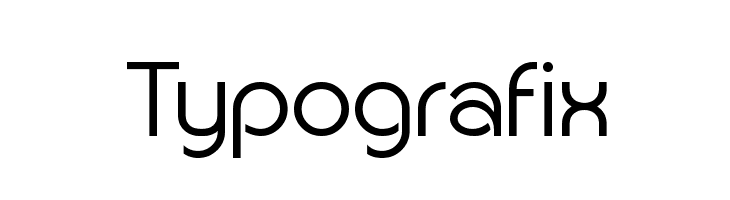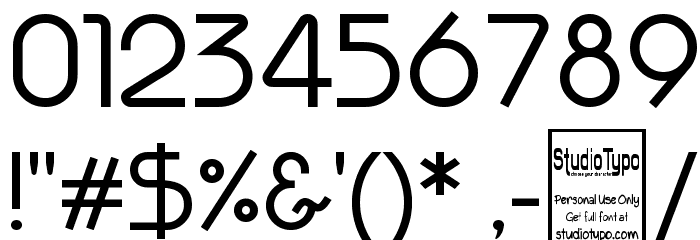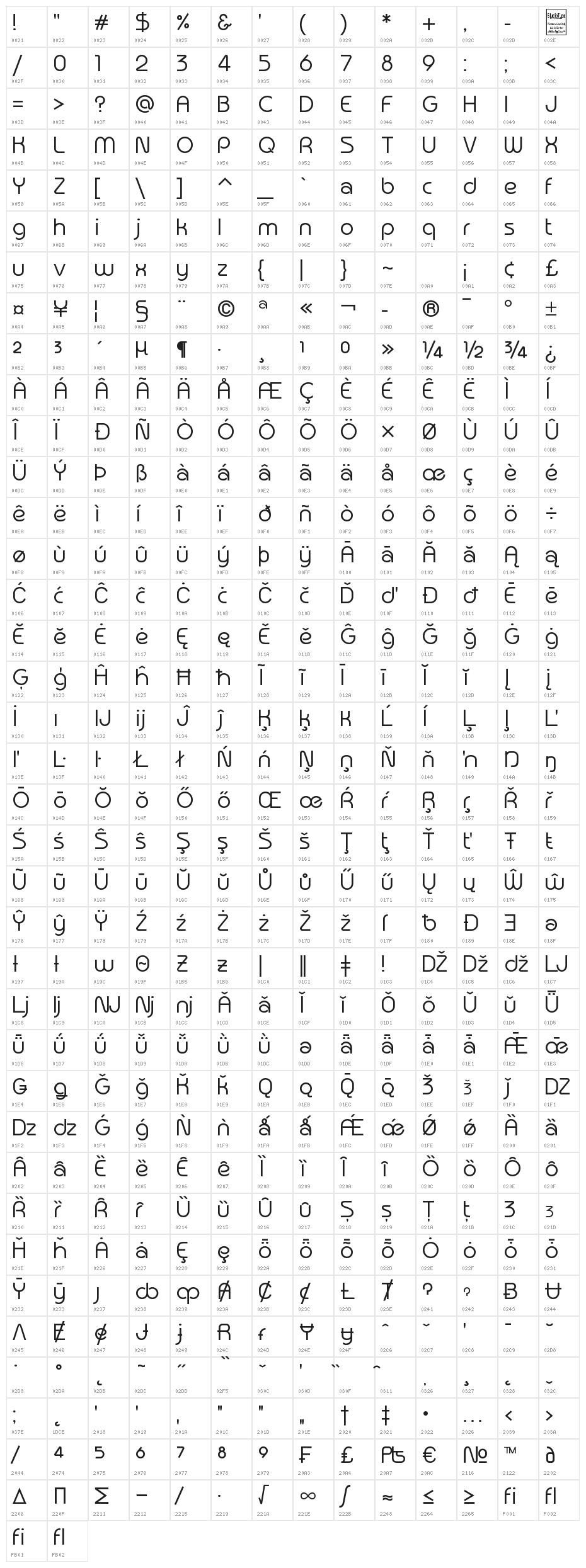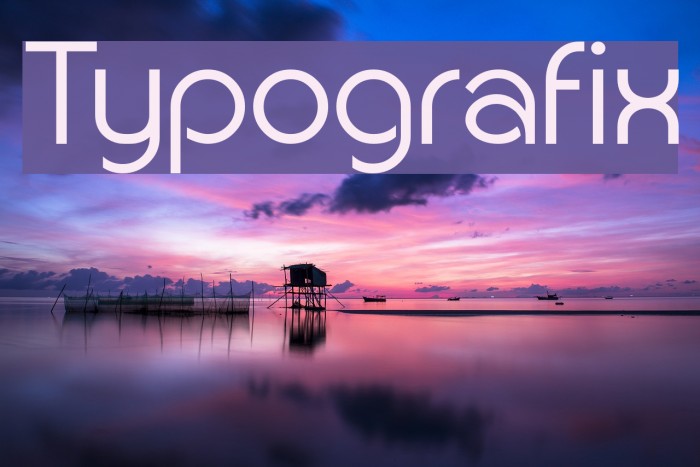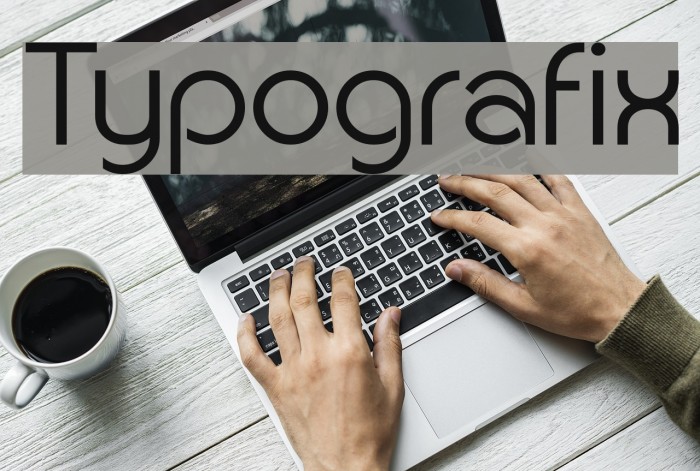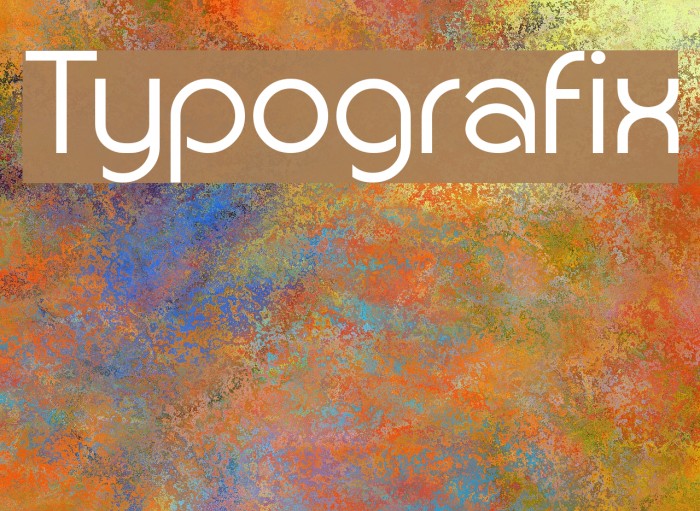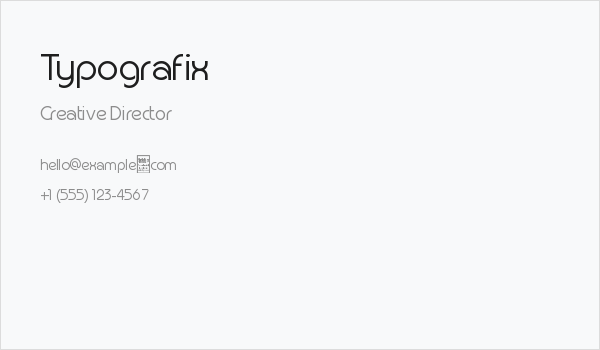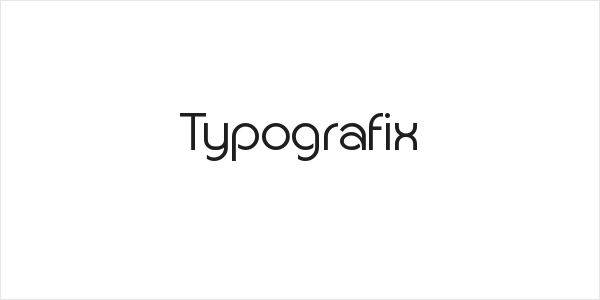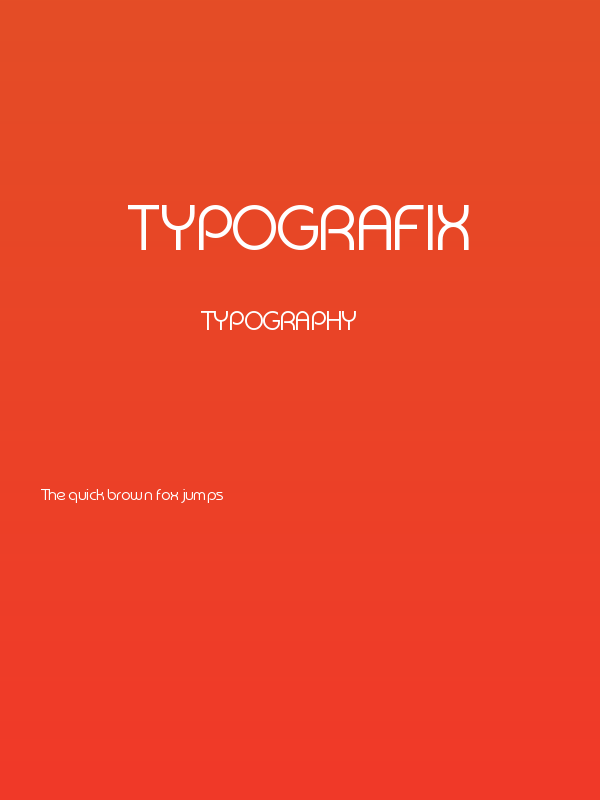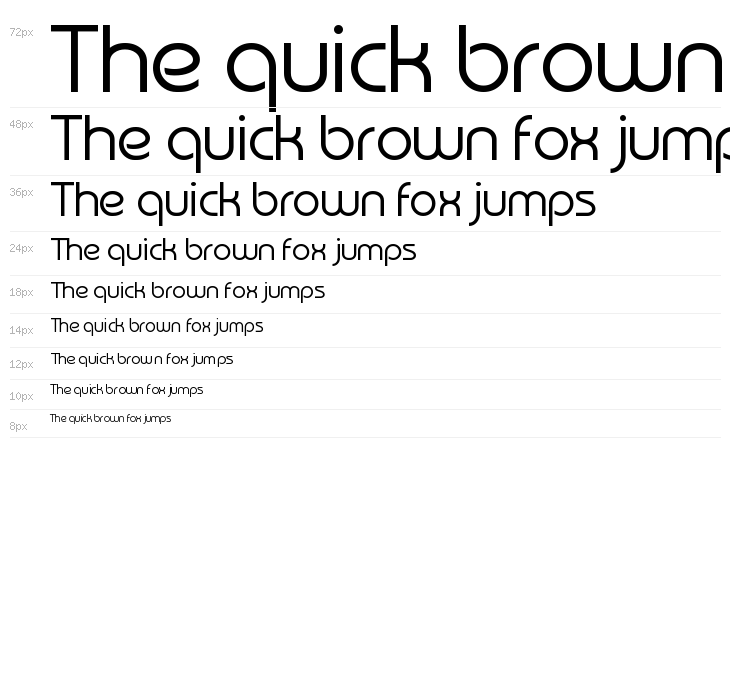
Typografix Font
Typografix Description
This font features a clean and modern sans-serif design with geometric influences. The characters are well-proportioned, with a uniform stroke width that gives it a sleek and contemporary appearance. The uppercase letters are bold and assertive, while the lowercase letters maintain a friendly and approachable feel. The numerals are clear and easy to read, making them suitable for various applications. Special characters are included, enhancing its versatility. The overall design is minimalistic, making it ideal for projects that require a modern and professional look.